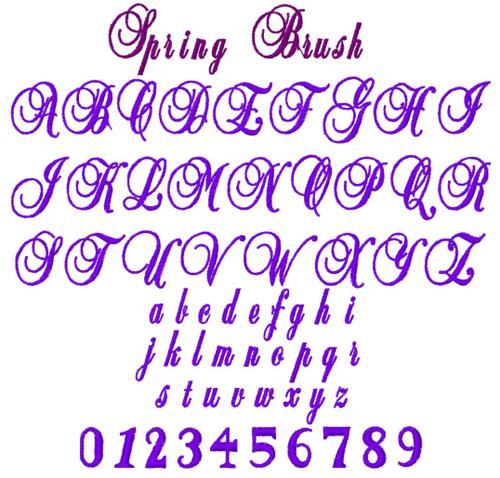
Internet Stitch is happy to present Spring Brush machine embroidery font which has Flowing script machine embroidery font suitable for spring décor projects on table linens and more. The soft brush-like style is ideal for crafters. Available in ELP format. included. If you would like to view more embroidery fonts and alphabets please search our embroidery fonts page.